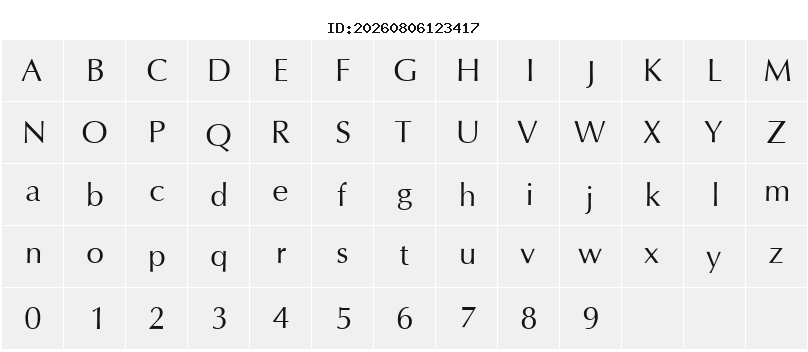
• Font Name: Optimum
• Full Font Name: Optimum Roman
Optimum.ttf is a modern, elegant sans-serif font designed for ultimate readability and visual harmony. Perfect for branding, headlines, web design, and print materials.